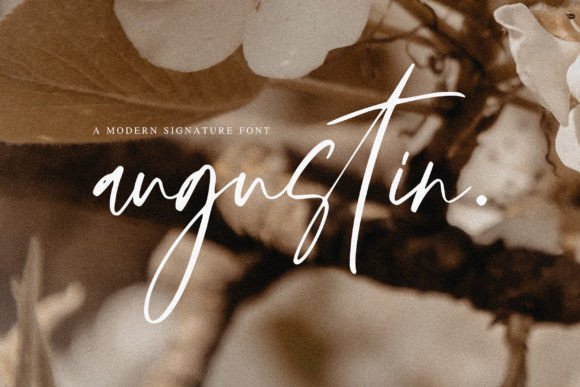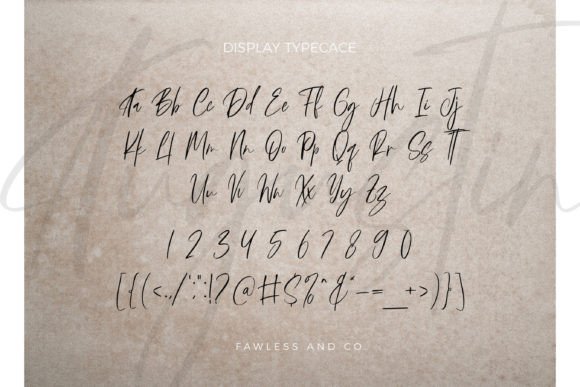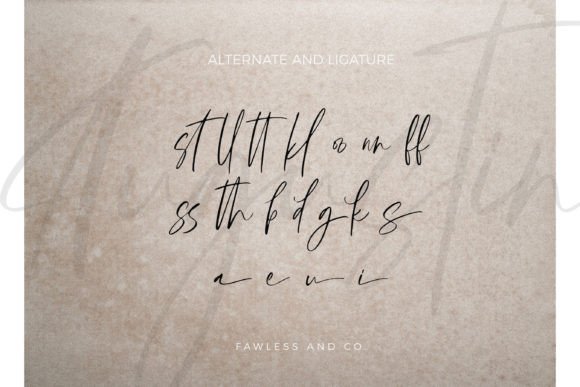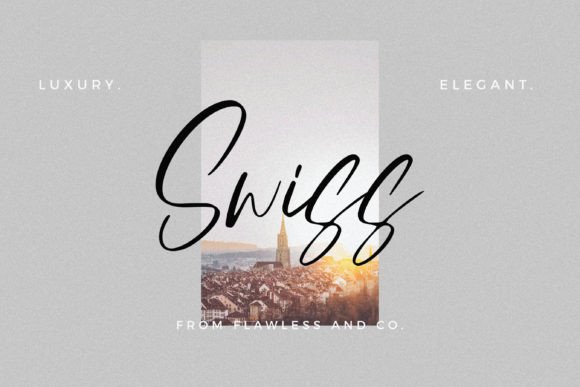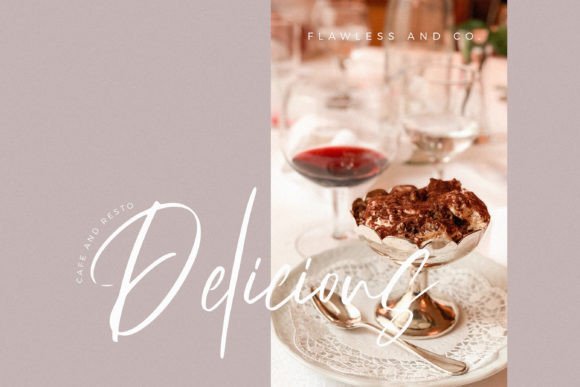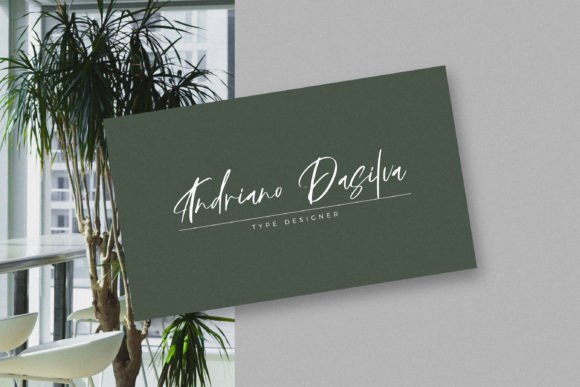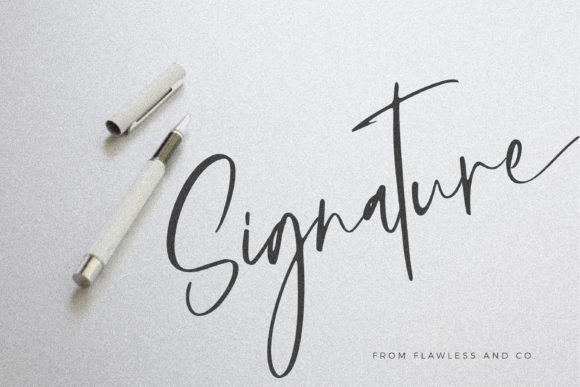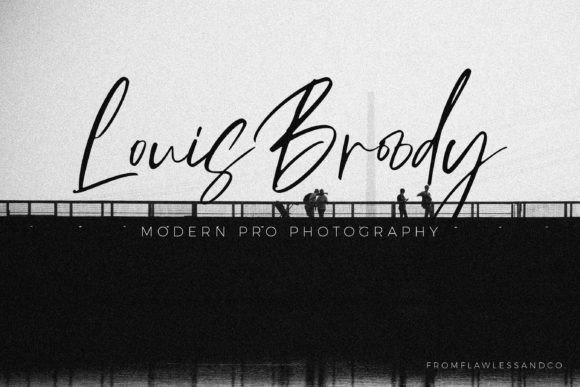
Augustin Font
About Augustin Font
**Augustin: The Dazzling Script Font**
*Augustin* is a truly captivating script font that effortlessly combines elegance with intricate detailing. Crafted with precision and artistry, this font is designed to enhance any creative project with its dazzling charm.
One of the standout features of Augustin is its impeccable craftsmanship. The font’s characters are meticulously shaped, with each letter carefully designed to create a harmonious flow. This attention to detail results in a script font that exudes sophistication and beauty, making it a valuable addition to any font library.
Augustin’s versatility is one of its defining qualities. It has the ability to elevate a wide range of design projects, regardless of the subject matter. Whether you’re working on branding, invitations, packaging, or editorial design, Augustin’s stunning appearance will leave a lasting impression.
For branding and logo design, Augustin adds a touch of luxury and refinement. It is particularly well-suited for high-end products and services that seek to convey elegance and exclusivity. The font’s ornate swashes and glyphs can be used to create unique and memorable brand identities that stand out in a crowded marketplace.
In the realm of wedding stationery, Augustin shines as well. Its dazzling script style brings a sense of romance and sophistication to wedding invitations, save-the-date cards, and thank-you notes. Couples looking to add a touch of glamour to their special day will find Augustin to be the perfect choice.
Editorial design is another area where Augustin’s beauty comes to the forefront. Whether it’s fashion magazines, beauty editorials, or lifestyle publications, this font adds a level of sophistication and allure to the content. Augustin’s ornamental flourishes and graceful curves make it a favorite among designers in the editorial world.
Augustin’s PUA encoding is yet another asset. This feature allows easy access to a wide range of alternate characters, swashes, and ligatures, giving designers the freedom to create custom lettering and typography that suits their project’s unique needs.
In conclusion, *Augustin* is a dazzling script font that combines meticulous craftsmanship with stunning beauty. Its versatility makes it suitable for branding, wedding stationery, editorial design, and more. With its ornate details and elegant appearance, Augustin has the potential to enhance any creation and leave a lasting impression of sophistication and charm.